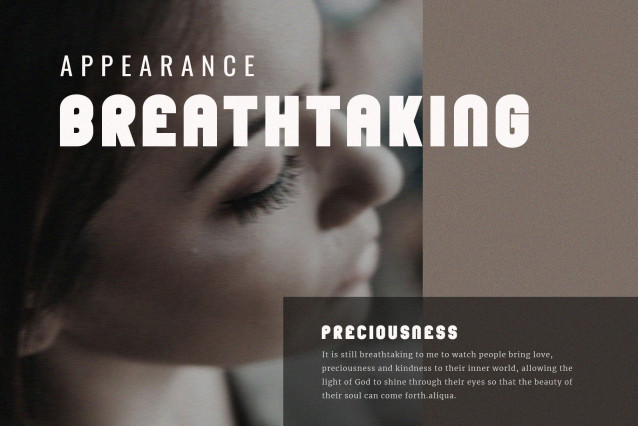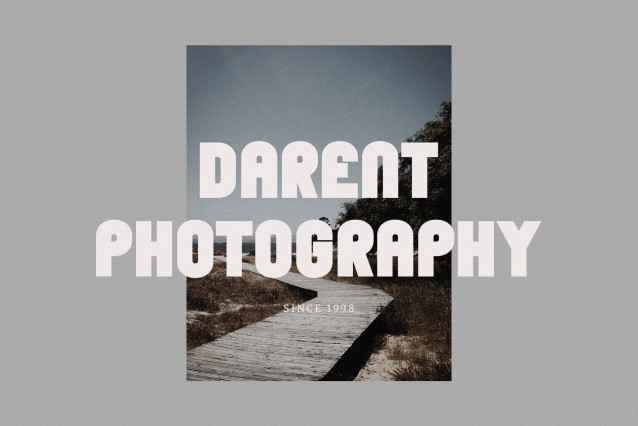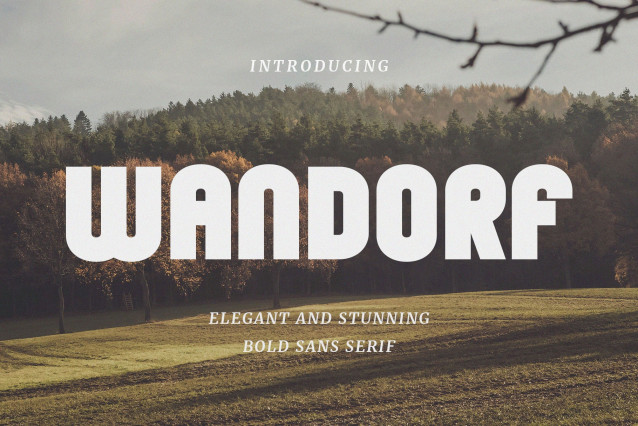
Wandorf Font
Wandorf Font is a modern and elegant typeface, best used as a display for headings, logos, branding, magazines, product packaging and invitations. Wandorf come with clean lines and smooth curves give any project an extra touch of class.